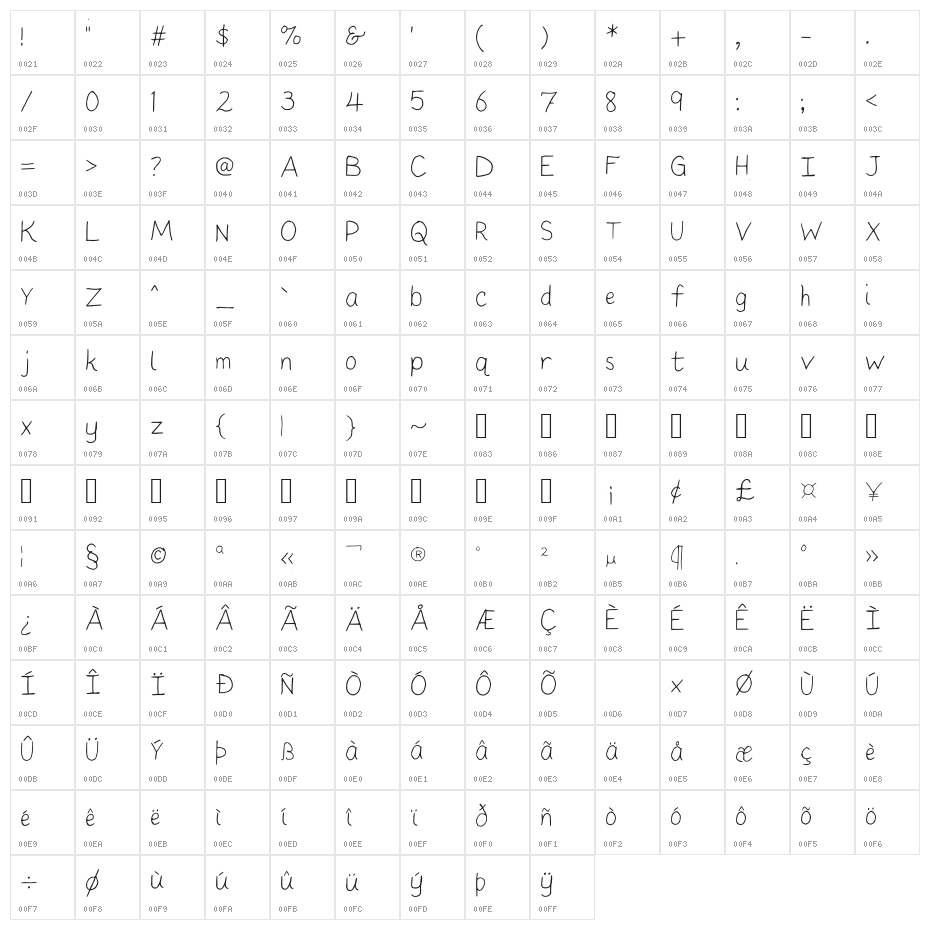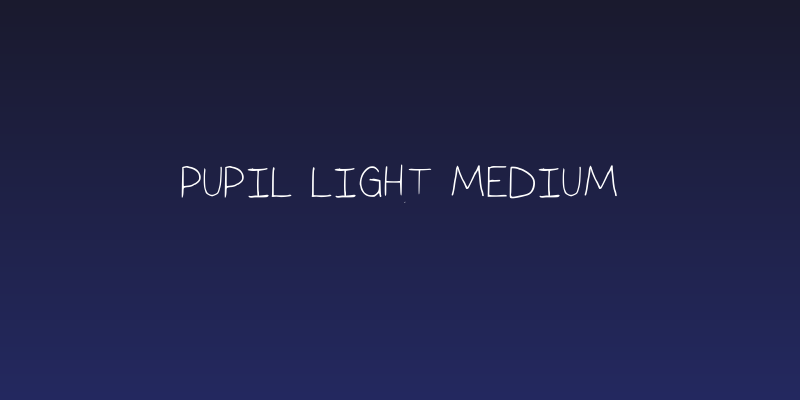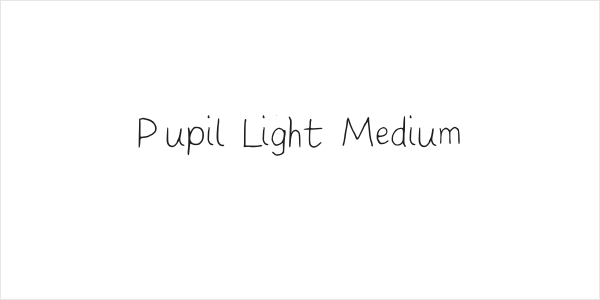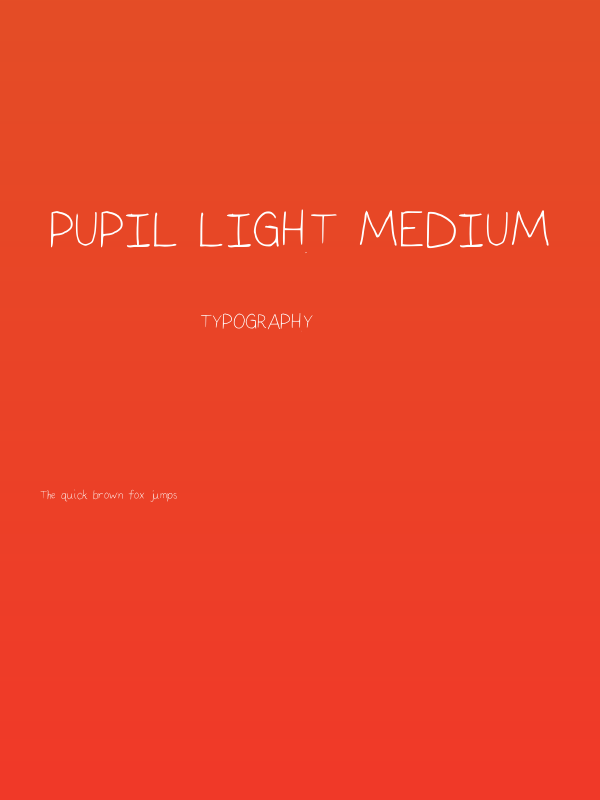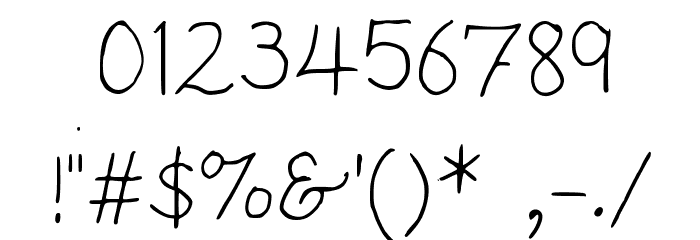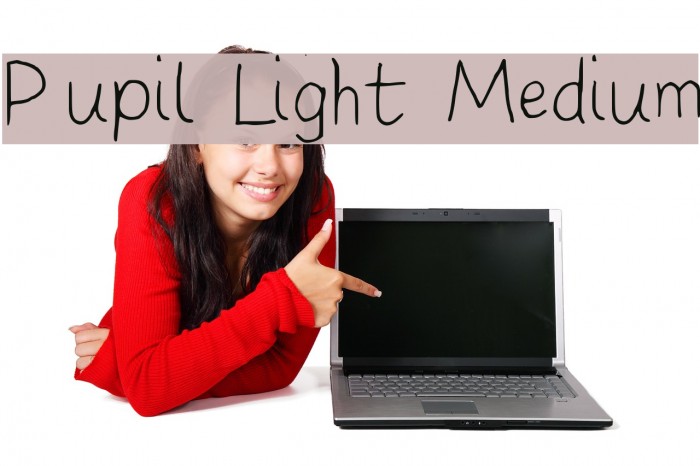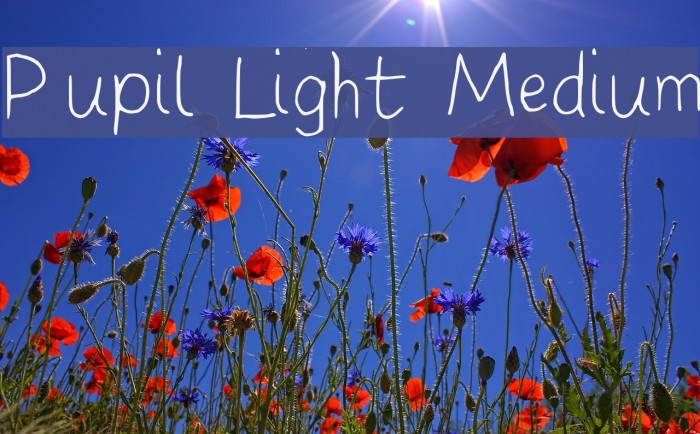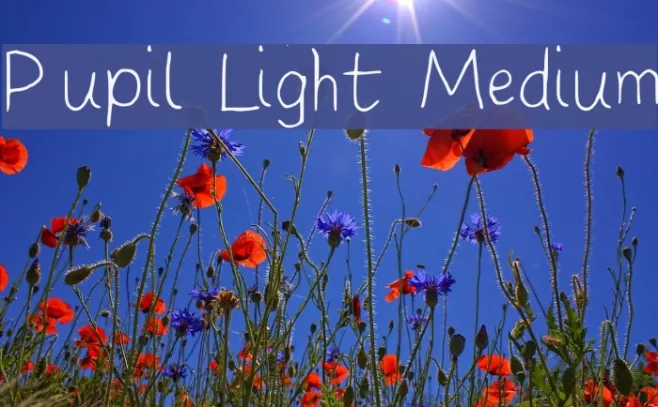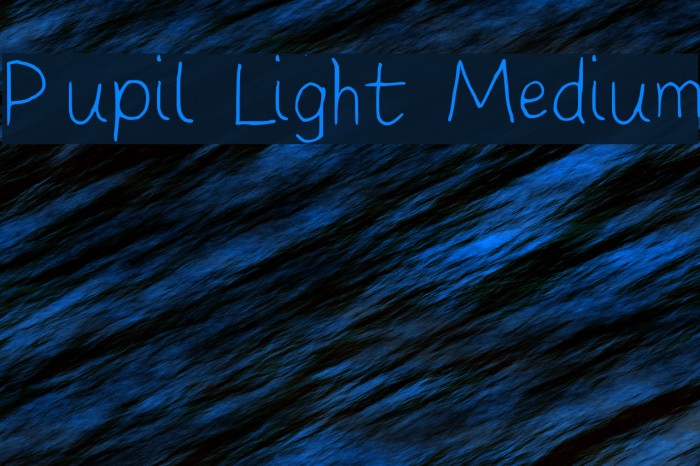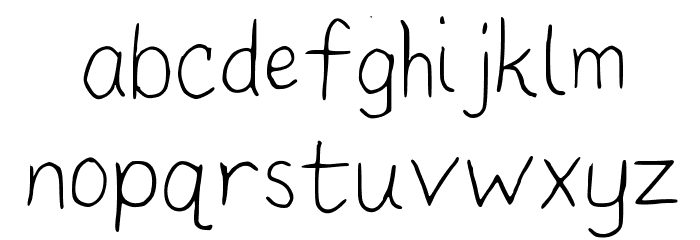
Pupil Light Medium Font
Pupil Light Medium Description
This font features a playful and casual handwritten style, characterized by its slightly irregular strokes and friendly appearance. The letters are well-spaced, providing a clean and readable look. The uppercase letters maintain a consistent height, while the lowercase letters exhibit a gentle variation in size, adding to the informal charm. The numerals are clear and distinct, matching the overall aesthetic. Special characters are thoughtfully designed to complement the letterforms, ensuring a cohesive appearance across all text. This font's light and airy feel makes it suitable for projects that aim to convey warmth and approachability.
| Use Case | Headlines, Informal text, Personal projects |
| Proposed Projects | Ideal for greeting cards, children's books, casual invitations, and personal blogs. |